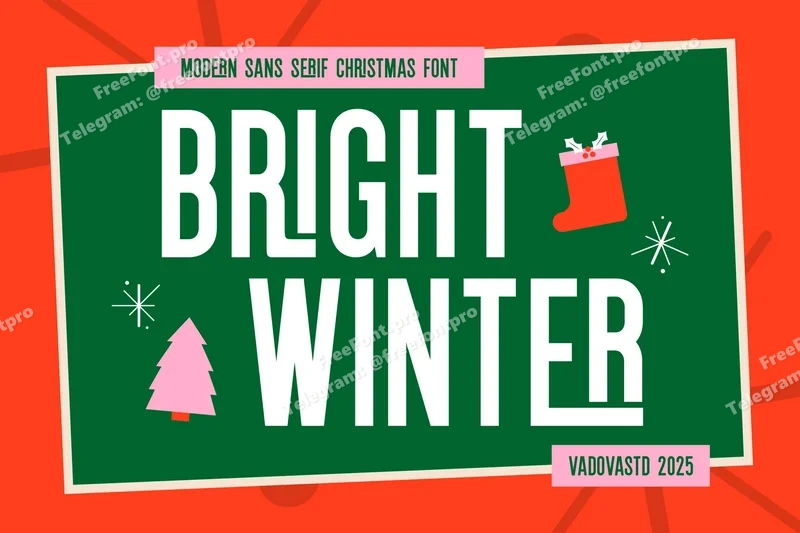
Bright Winter Sans Serif Christmas Font
Bright Winter is a festive modern sans serif font designed with geometric structure and cheerful holiday spirit. Its tall and narrow letterforms give a stylish retro touch, while the special ligatures add playful character to every composition. Ideal for Christmas cards, seasonal branding, packaging, or holiday campaigns, this typeface captures the warmth of the season with a clean and contemporary design. Featuring uppercase and lowercase letters, numbers, punctuation, and creative ligatures for added versatility.
Uppercase & Lowercase characters
Numeral & Punctuations